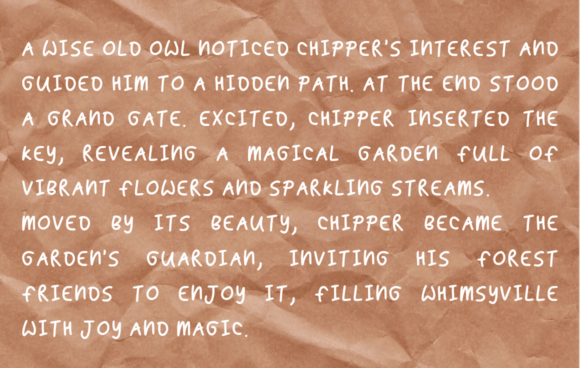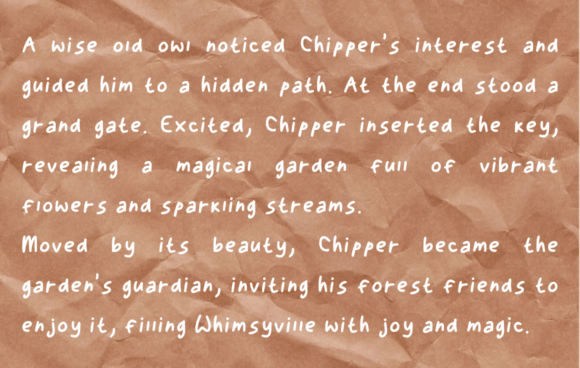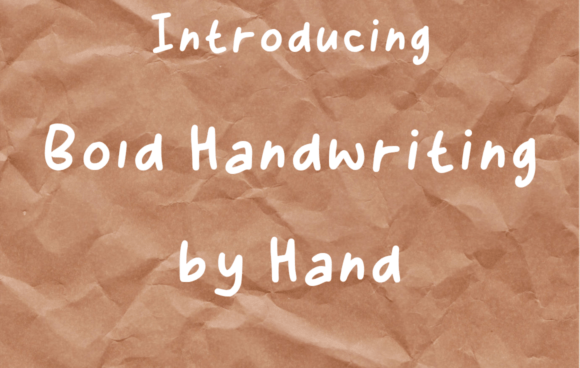
Bringing a Personal Touch to Your Designs with Bold Handwriting by Hand Font
I’ll never forget the time I was working on a project for a client who wanted a custom font for their branding. I spent hours scouring the internet for the perfect handwritten typeface, but nothing seemed quite right. That was until I stumbled upon the Bold Handwriting by Hand font. Its smooth, rounded edges and consistent bold weight immediately caught my eye, and I knew I had found the one. In this article, I’ll share my experience with this beautiful font, its features, and how to make the most of it in your designs.
A Personal Review of Bold Handwriting by Hand Font
- ✨ Authentic Handwritten Feel: The Bold Handwriting by Hand font has a natural, hand-lettered charm that adds a warm, personal touch to any design.
- ✅ High Legibility: The thick strokes ensure excellent readability, even at small sizes.
- 🎨 Versatility: This font is incredibly versatile and works beautifully for everything from heartfelt greeting cards to modern branding.
While the Bold Handwriting by Hand font is amazing, there are a few things to keep in mind:
- 🤔 Limited Formality: As a bold, handwritten font, it may not be suitable for very formal or corporate designs.
- ⚠️ Overuse: Using this font for large blocks of text may not be the most readable choice.
The Story Behind Bold Handwriting by Hand Font
The Bold Handwriting by Hand font was designed with the intention of capturing the natural charm of hand-lettering. The designer, inspired by the art of handwriting, aimed to create a font that would bring a warm, personal touch to designs. With its smooth, rounded edges and consistent bold weight, this font is perfect for adding a human touch to your projects.
| Font Name | Bold Handwriting by Hand Font |
| Author | Fatia hafida |
| What is the Bold Handwriting by Hand font best used for? | The Bold Handwriting by Hand font is ideal for designs that require a personal touch, such as social media graphics, product packaging, and greeting cards. |
| Is the Bold Handwriting by Hand font suitable for large blocks of text? | While the font is legible, it may not be the best choice for large blocks of text. It’s better suited for titles, headings, and short paragraphs. |